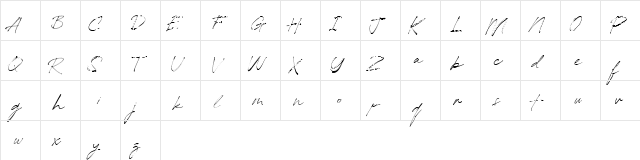
Redstock Script DEMO Regular
| Foundry | Konstantine Studio |
| Designer | Konstantine Studio |
Design Context for Redstock Script DEMO Typeface
Redstock Script DEMO brings a calligraphic fluidity to the page — its connecting strokes and expressive curves give it an unmistakably human quality.